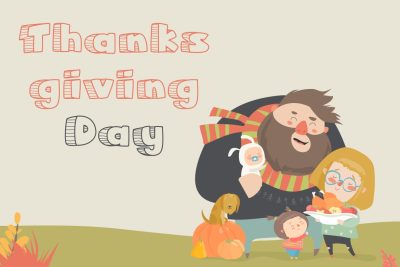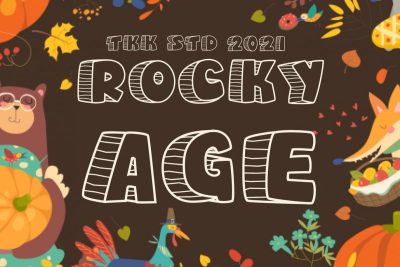
The “Gaming Font Rocky Age” is the perfect combination of fun and creativity. It is tailored to capture the hearts of gamers, kids, and designers alike. With its bold, hand-drawn style, this font evokes a sense of adventure and whimsy. Its unique outline lettering makes it stand out in gaming interfaces, childrenโs projects, or any playful design endeavor. Whether you’re working on an educational app, a storybook, or a themed logo, this font delivers an engaging and vibrant look.
Designed to embody youthful energy, this font is a great addition to projects aiming to inspire curiosity and excitement. The letterforms, with their smooth curves and bold outlines, are easy to read yet packed with personality. Perfect for titles, banners, or even branding, this font is especially appealing for themes tied to exploration, gaming, or prehistoric adventures. Whether youโre creating a dinosaur-themed party invitation or a colorful game UI, “Gaming Font Rocky Age” ensures your design stands out.
The fontโs outlined letters offer a dynamic, eye-catching effect. It works wonderfully on both digital and print mediums. The playful structure makes it ideal for engaging audiences in fun and interactive projects. “Gaming Font Rocky Age” suits various uses, including gaming titles, childrenโs books, and educational materials. Its lively style ensures that it grabs attention and resonates with diverse audiences. Designed to work seamlessly with modern tools, this fontโs adaptable format saves time while delivering high-quality results. While it brings a playful vibe, the font retains clear and legible characters, ensuring usability in professional and creative settings.
This font not only meets the functional needs of designers but also adds a touch of personality. Its bold lines and cheerful aesthetic are perfectly suited to gaming-themed projects and kid-friendly materials. It helps set the right tone and capture attention.
In the ever-evolving world of design, having a unique and versatile font like “Gaming Font Rocky Age” is invaluable. Its timeless appeal, inspired by the prehistoric era, brings a nostalgic yet modern twist to your creative endeavors. The outlined letters provide a sense of depth and energy, making it a favorite for projects requiring both playfulness and professionalism.
Moreover, “Gaming Font Rocky Age” bridges the gap between functionality and fun. Its adaptability ensures itโs just as effective in gaming interfaces as it is in cheerful birthday invitations. Thanks to its distinct style, your designs can effortlessly connect with younger audiences while maintaining universal appeal.
Whether you’re designing for digital platforms or printed materials, this font adds charm and excitement to your work. Itโs the perfect choice for creators who want their projects to exude energy and joy while maintaining a polished and professional appearance.